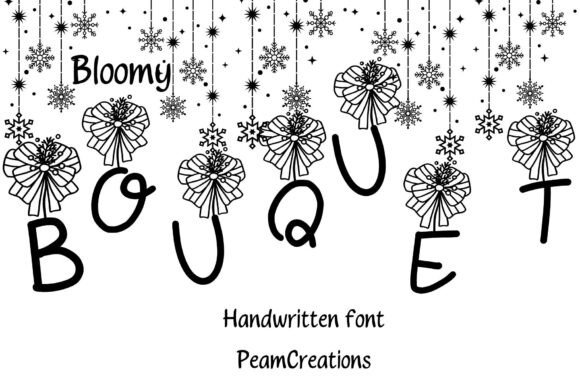
The Bloomy Bouquet Font: A Charming Addition to Your Design Arsenal
I still remember the day I stumbled upon the perfect font for a client’s wedding invitation project. I had been searching for what felt like hours, trying out font after font, but nothing seemed quite right. That was until I discovered the Bloomy Bouquet font. With its delicate bows adorning each letter, it added a touch of elegance and whimsy that perfectly captured the essence of the occasion. In this article, I’ll share my experience with this beautiful font, its features, and how to make the most of it in your designs.
An Honest Review of Bloomy Bouquet
• ✨ The unique bow-topped letters add a charming and elegant touch to any text
• ✅ Perfect for wedding invitations, party decor, and other celebratory designs
• 💕 The font’s playful yet sophisticated feel makes it suitable for a wide range of creative projects
• 🎉 It’s a great way to add a personal touch to your designs and make them stand out
While Bloomy Bouquet is a stunning font, there are a few things to keep in mind:
• ⚠️ The bows on each letter can make the text a bit more difficult to read at smaller sizes
• 🤔 Some letters, like the lowercase “q” and “p”, can be a bit tricky to distinguish due to the bow design
The Story Behind Bloomy Bouquet
Bloomy Bouquet was designed with the intention of creating a font that would add a touch of elegance and whimsy to any design. The designer wanted to create a font that would be perfect for special occasions, like weddings and parties, but also versatile enough to be used in a variety of creative projects. The result is a font that’s both beautiful and functional.
Q: What is the Bloomy Bouquet font best used for?
A: Bloomy Bouquet is perfect for wedding invitations, party decor, and other celebratory designs. It’s also great for adding a personal touch to your designs and making them stand out.
Q: Is Bloomy Bouquet a difficult font to use?
A: While Bloomy Bouquet has some unique features, like the bow-topped letters, it’s actually quite easy to use. With a little practice, you can create beautiful designs with this font.